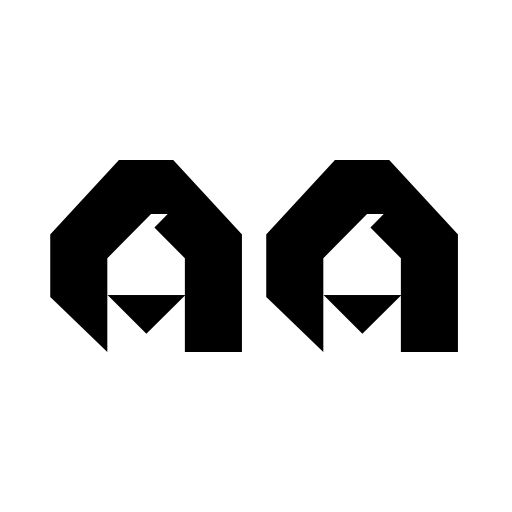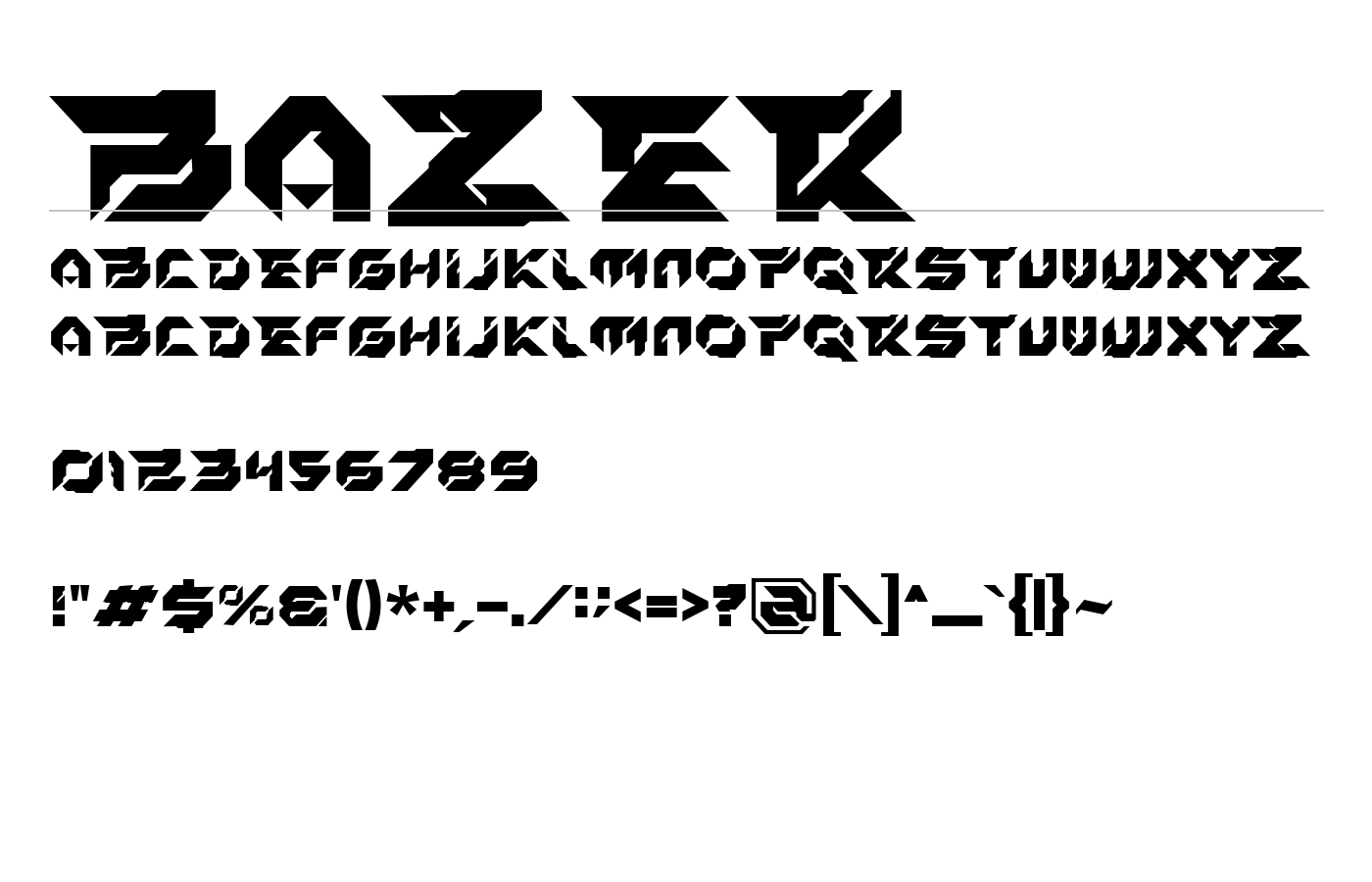
Bazer is a bold, geometric sans serif font with a strong, futuristic feel. Its sharp, blocky letterforms and angled cuts give it a powerful, tech-inspired personality, making it perfect for eye-catching headlines, logos, and branding in gaming, technology, or sci-fi contexts. This font stands out with its unique, edgy style that demands attention and conveys innovation and strength.
Bazer Font
About Bazer Font